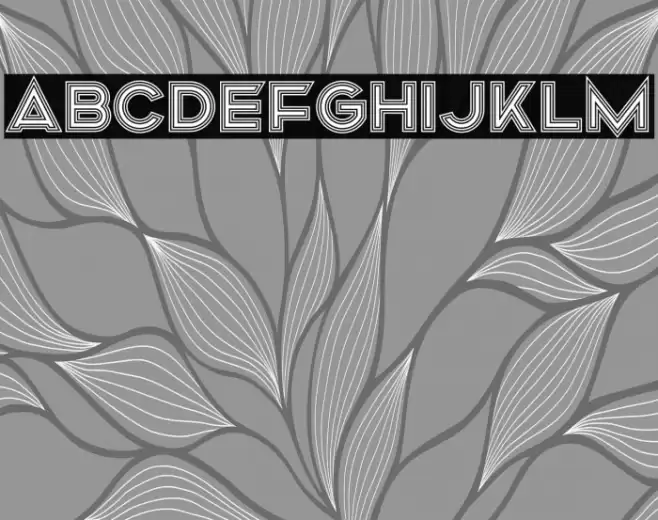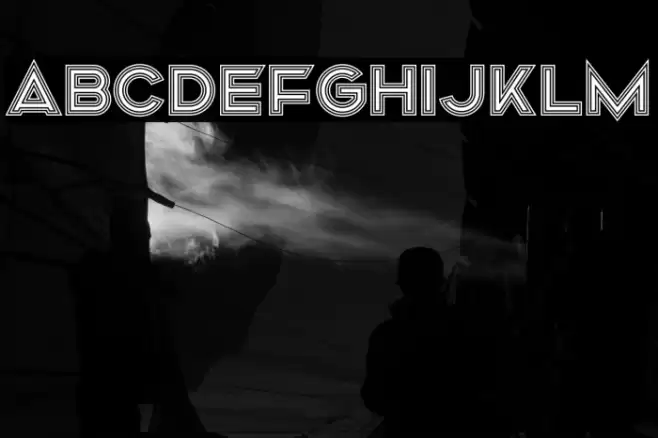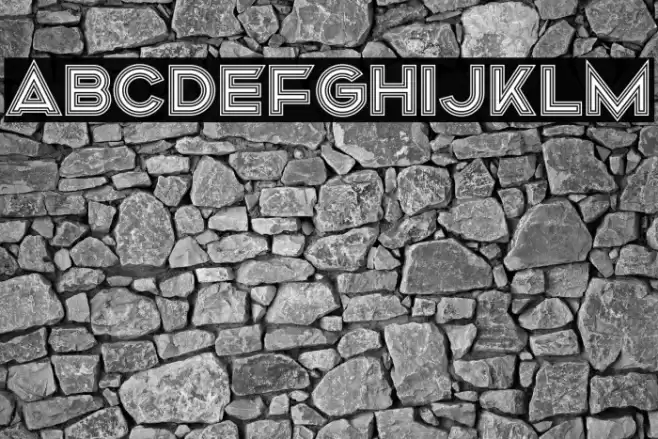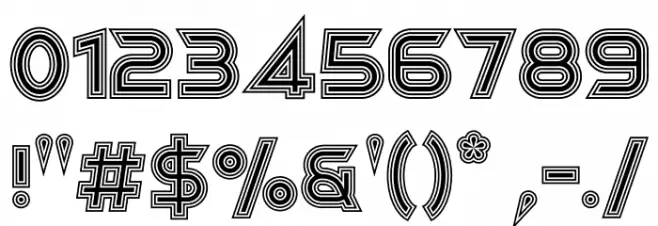
Mismo Complete Font
Mismo Complete Description
This font features a bold, geometric design with a distinct outline style that gives it a three-dimensional appearance. Each character is crafted with precision, showcasing clean lines and sharp angles. The uppercase and lowercase letters maintain a consistent width, while the numerals and special characters complement the overall aesthetic. The font's unique style makes it stand out, offering a modern and dynamic look that is both eye-catching and versatile.
A bold, geometric font with a three-dimensional outline style from Uncategorized fonts.
- Font: Mismo Complete
- Proposed Projects: Ideal for branding, posters, headlines, and any design project that requires a modern and striking visual impact.